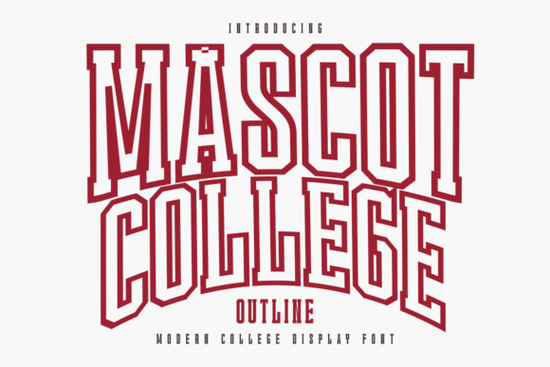
If you're looking for a clean, bold display font that captures classic college spirit think varsity jackets, team posters, and spirited merch the Mascot College Outline Font fits naturally into your workflow. It’s not just another slab-serif; it’s built with real use cases in mind: vinyl cutting on Cricut or Silhouette machines, sublimation transfers, screen-printed tees, and even digital branding for school clubs or local sports leagues. Its sharp, open outlines reduce weeding time and hold up well at small sizes something many crafters notice right away when testing files.
What makes Mascot College Outline different from other college-style fonts?
Most “varsity” fonts lean heavily into distressed textures or exaggerated serifs. Mascot College Outline takes a more refined approach: strong blocky letterforms, consistent stroke weight, and subtle athletic slab-serif details like the squared-off terminals on letters like T, E, and L. That balance means it reads clearly on a jersey chest print and works cleanly as a single-word logo on a water bottle or tote bag. Unlike some outline fonts that collapse or blur when scaled down, this one keeps its shape even at 18pt for iron-on transfers.
You’ll also appreciate how it pairs with supporting type. Try layering it over a simple sans-serif like Montserrat or Poppins for posters or social media graphics. Or combine it with something like Abrar Font for contrast its geometric warmth complements Mascot College’s structured energy without competing.
Where does it work best in practice?
Real designers and makers tell us it shines in three main areas:
- Print-on-demand shops: Works reliably across platforms like Printful and Gelato. The outline version avoids fill issues common with solid fonts in automated mockup generators.
- Vinyl crafting: Clean interior paths mean fewer cut errors and faster weeding especially helpful if you’re running batches of fan gear or school spirit bundles.
- Digital branding: Used by small businesses launching youth sports programs, local rec leagues, or alumni groups who want authentic but polished visuals not clip art vibes.
How does it compare to similar fonts?
Compared to distressed creative fonts, Mascot College Outline is cleaner and more versatile it doesn’t limit you to “vintage” or “grunge” themes. If you need rugged texture, go there. But for broad appeal say, a high school robotics team wanting modern energy without looking dated this is often the better pick.
It shares confidence with bold display fonts, but stands out because of its intentional athletic structure not just weight. And while Cowboy Varsity Font leans into Western collegiate tropes (stars, rope motifs), Mascot College stays focused on timeless geometry and readability.
Who should consider using it and who might skip it?
This font suits designers who value consistency across physical and digital outputs, crafters who cut vinyl regularly, and POD sellers building collections around school pride, sports fandom, or community identity. It’s especially helpful if you’ve had trouble with fonts that look great on screen but don’t translate cleanly to fabric or heat transfer vinyl.
It’s less ideal if you’re after hand-drawn charm, script elegance, or highly decorative embellishment. For those needs, explore other display categories or pair Mascot College Outline with a complementary script font for headings and quotes.
One practical tip before downloading: test the uppercase “S”, “B”, and “R” in your cutting software. Their interior counters are intentionally open and uniform great for avoiding tiny loose pieces but worth verifying with your machine’s settings.
- Check line spacing in your layout tool; the font performs best with slightly increased tracking (5–10 units) for headlines.